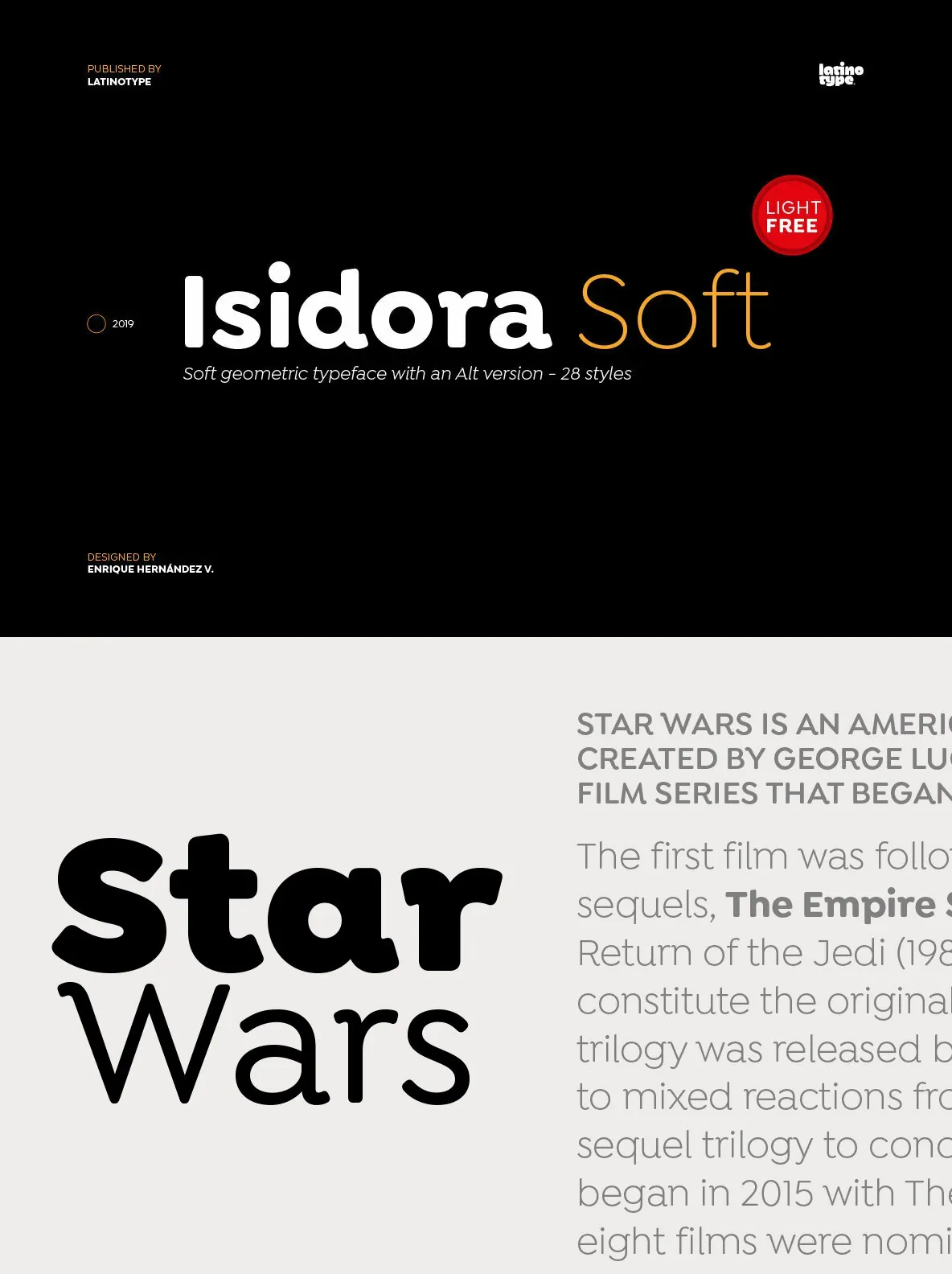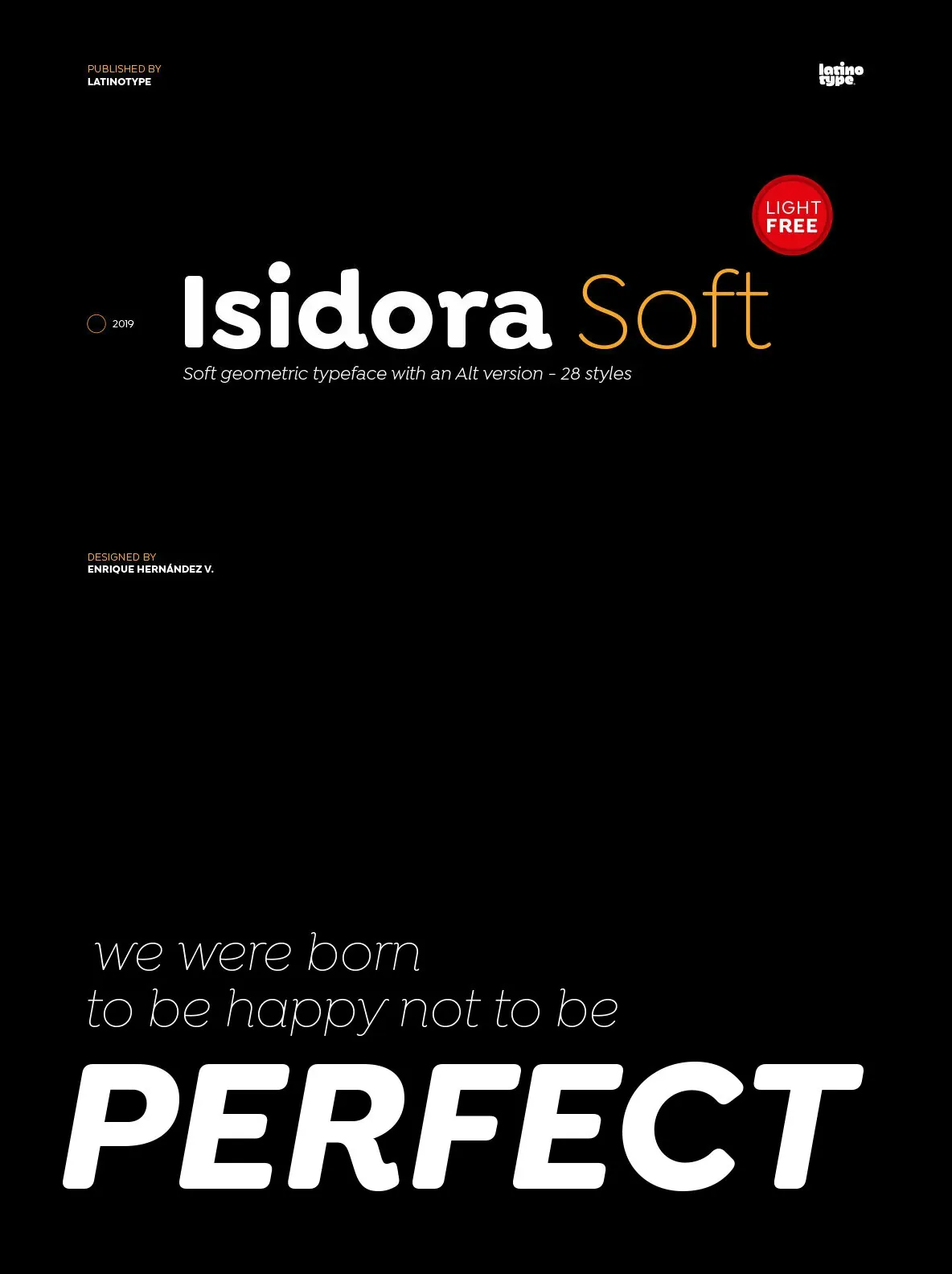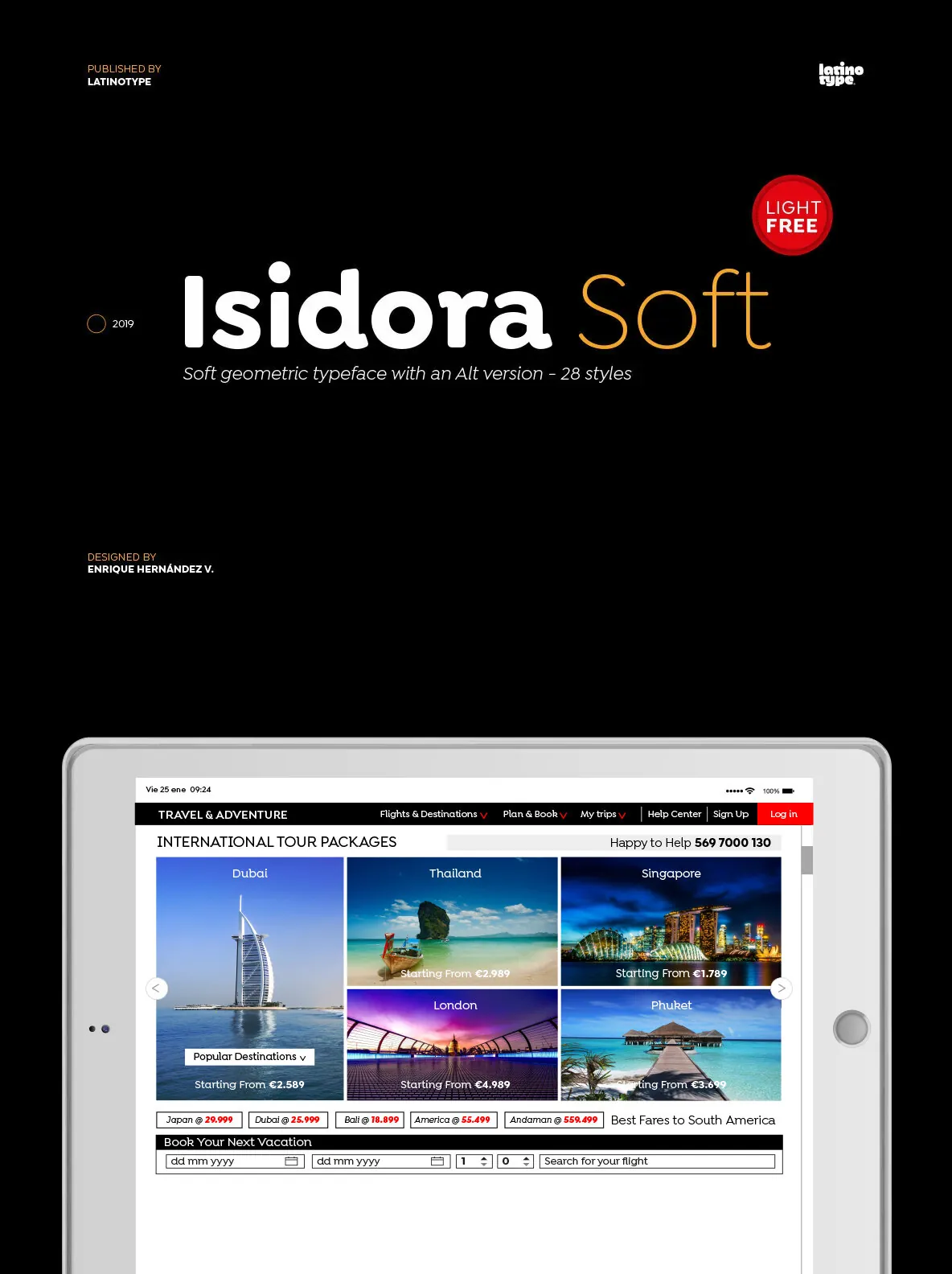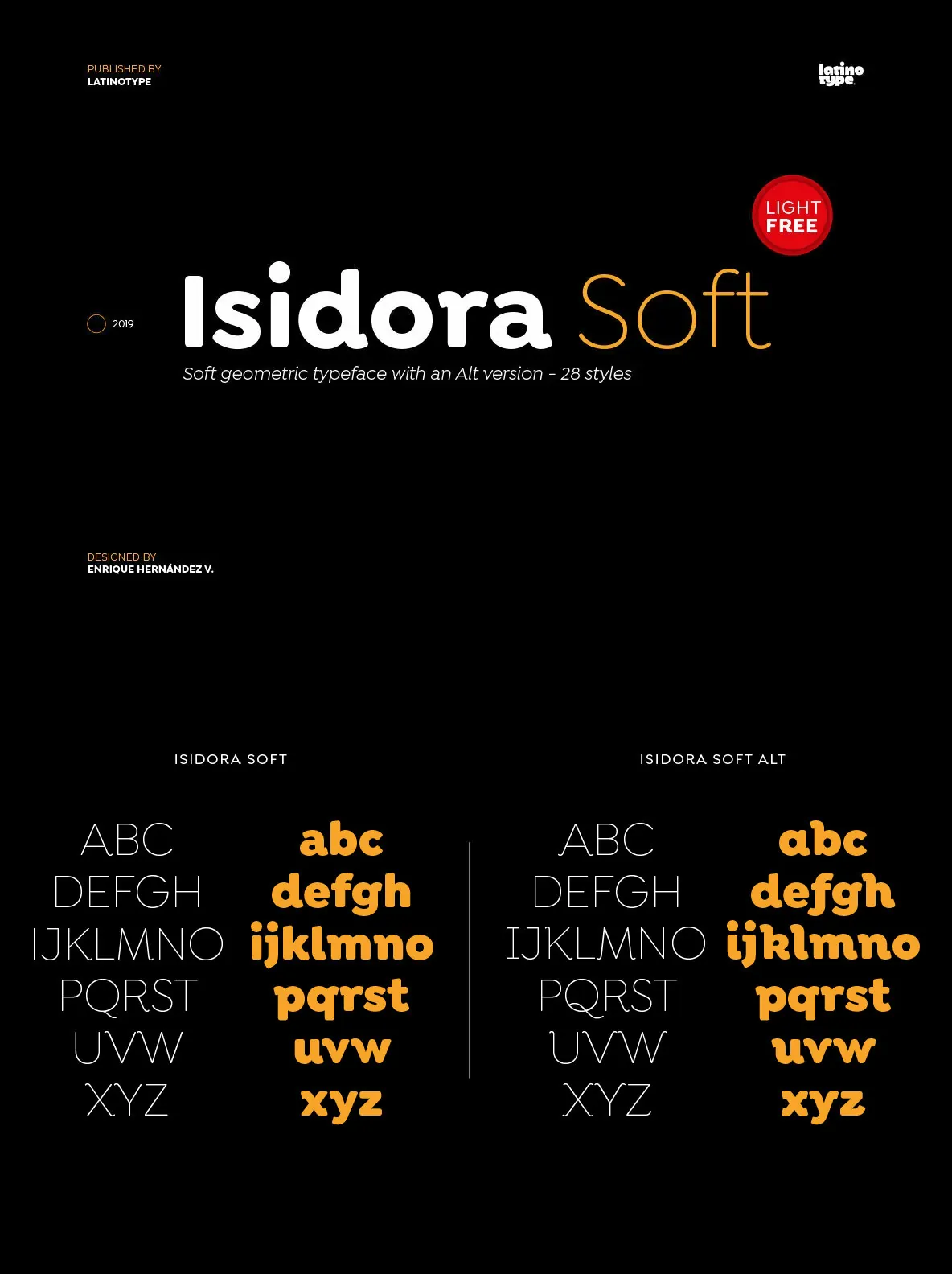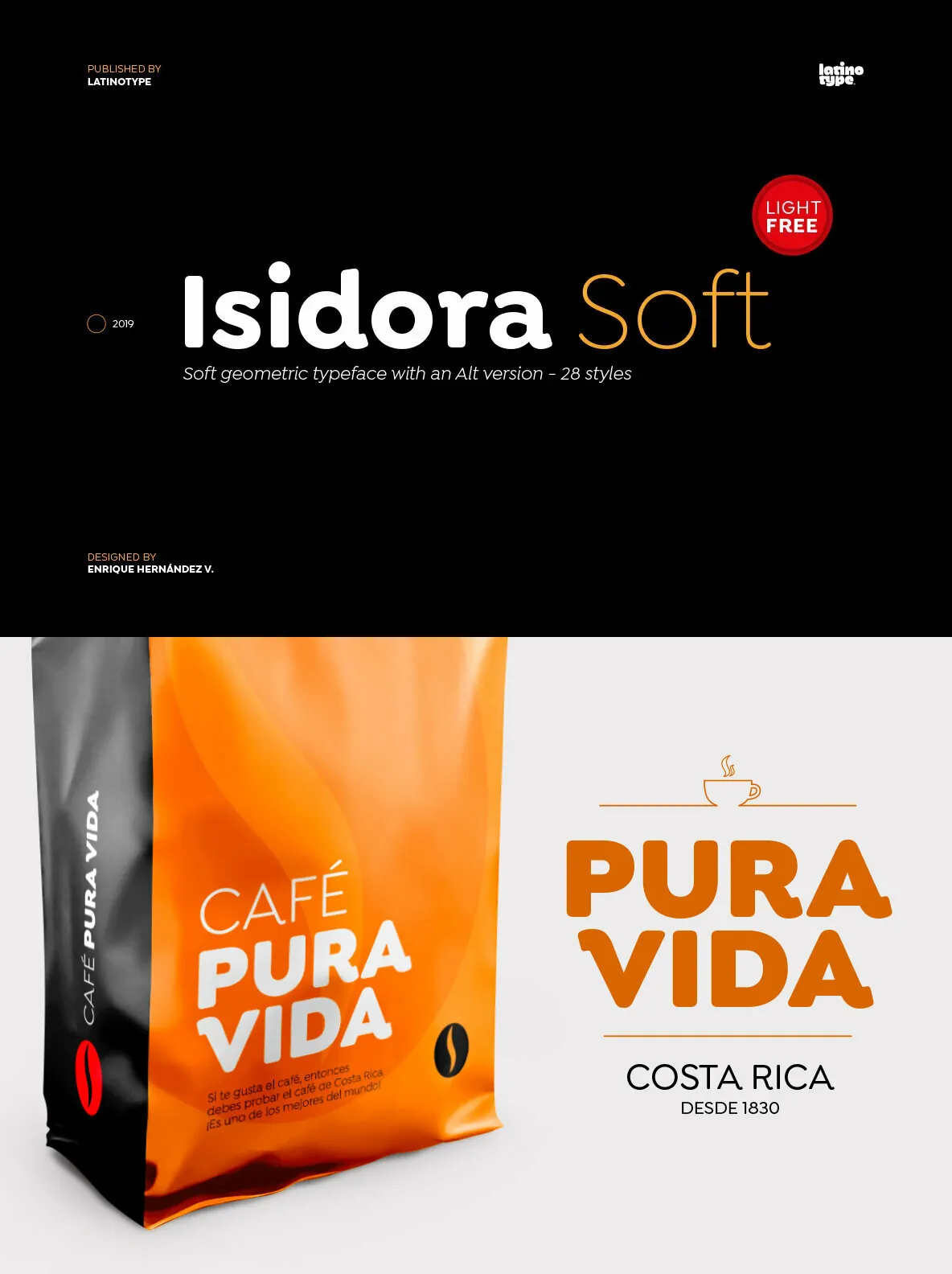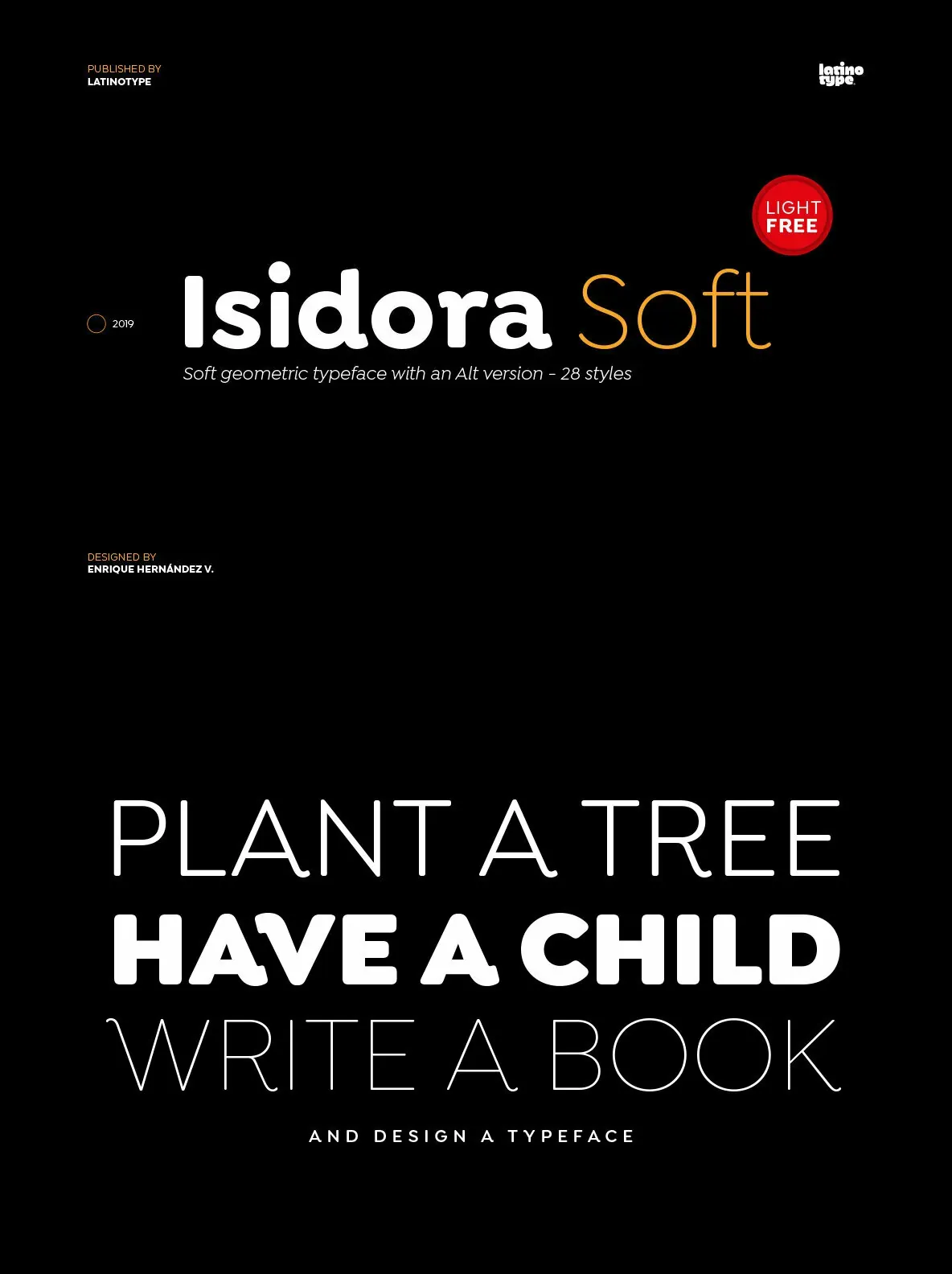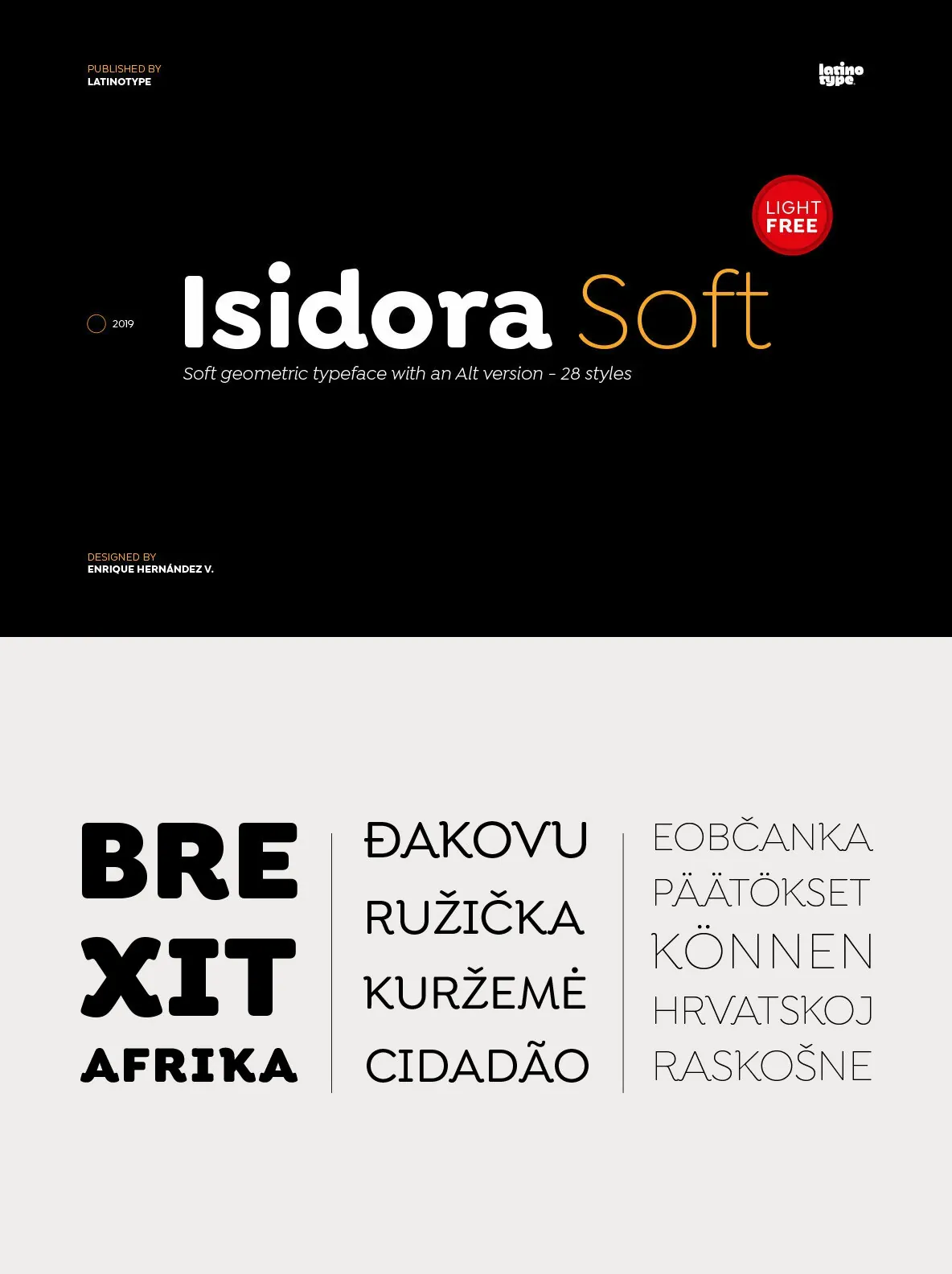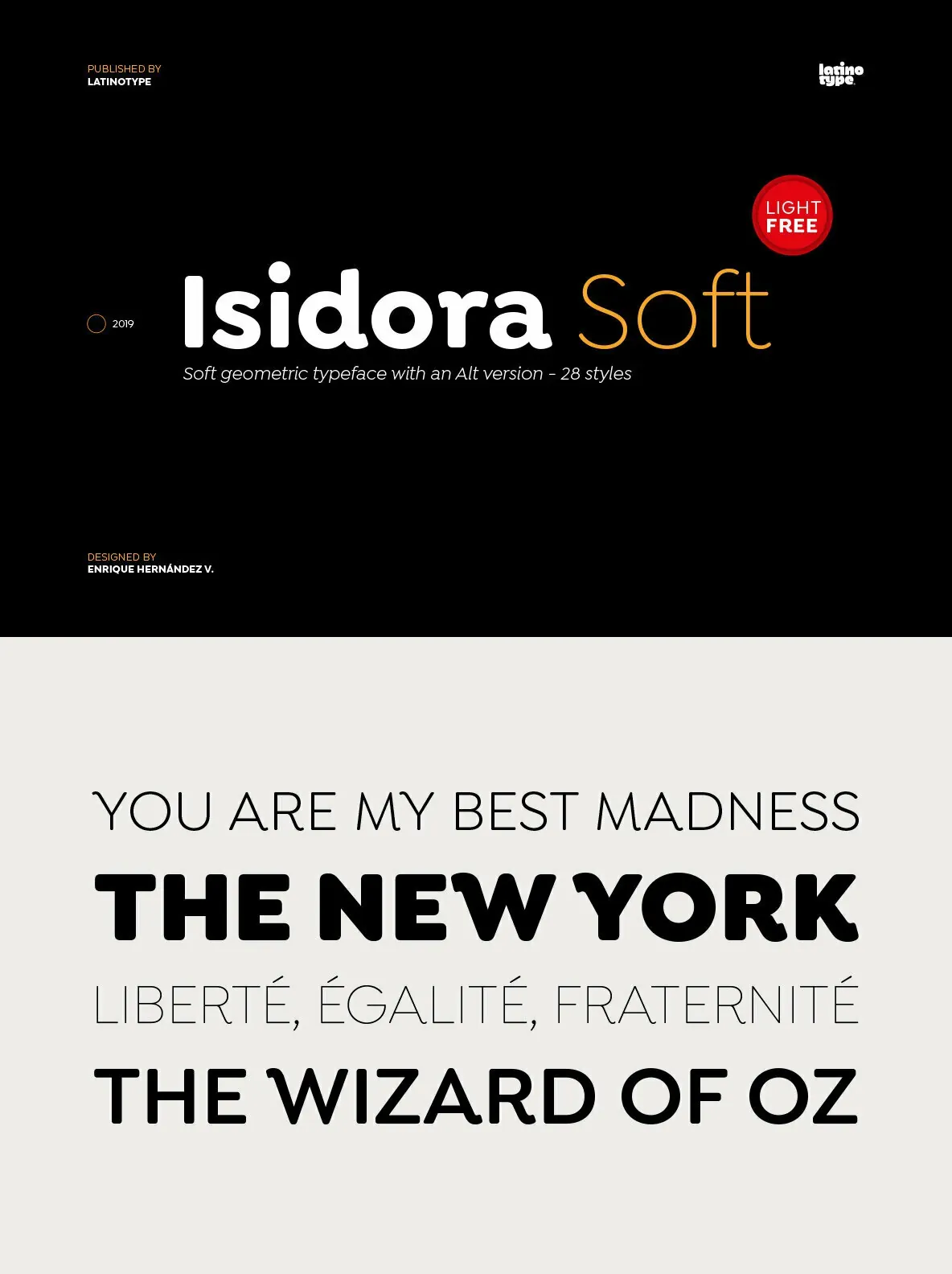
Isidora Soft: A Contemporary Rounded Sans Serif
Isidora Soft brings a fresh approach to modern typography with its gently rounded, soft terminals. This contemporary typeface exudes a welcoming and approachable feel, making it ideal for designers seeking to infuse warmth into their work. Its refined, modern design stands out in editorial layouts, headline treatments, and identity projects.
Key Features
Rounded terminals for a friendly aesthetic
Modern style with classic proportions
Small x-height for a sophisticated presence
Suited for headlines, logotypes, and branding projects
With its clean lines and expressive details, Isidora Soft offers reliable versatility for branding, packaging, and display use. Its blend of classic proportion and modern execution ensures strong readability without sacrificing character, supporting memorable visual identities across print and digital platforms.